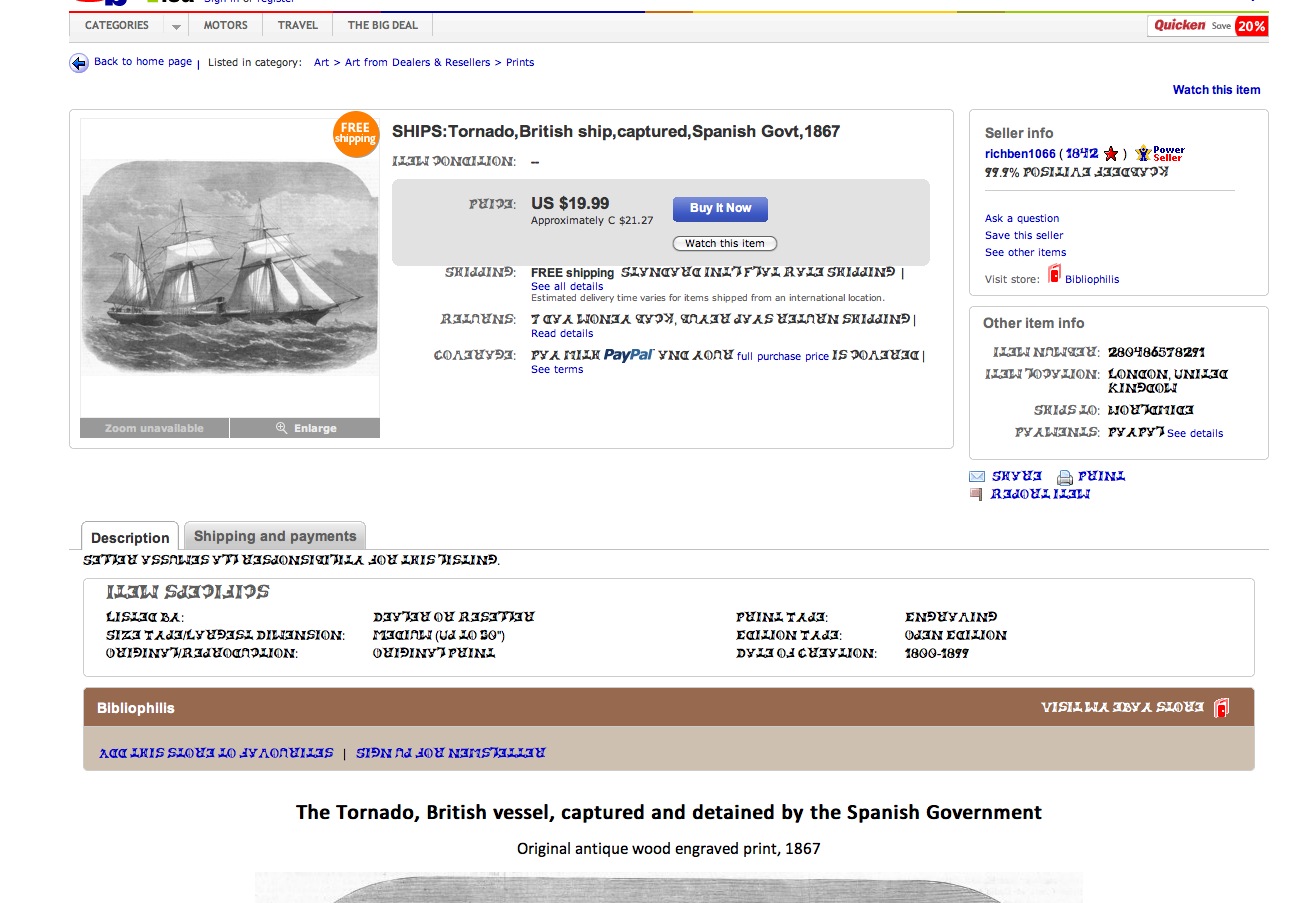
Hi,, I am finding a Bug in Safari 5, where it either cant remember it standard font or its default encoding.
a few times a day, I end up looking at ebay text which looks like quasi crillic text font.
I have tried to find this font on my hard disk to eleminate it. any one know what it is
also how to I stop safari forgetting these settings.
it is getting bloody annoying. I have sent several reports though to apple. to no avail. as usual.
That doesn't have anything to do with the text encoding; even if it were selecting the wrong one, basic ASCII will render correctly in just about any character set. Further, eBay specifies fonts for everything, so your default font isn't going to have any effect on that, either--that only comes into play if the site doesn't specify a font.
From the looks of it, that's just some oddball font with upside-down characters--whether it was intended to look like cyrillic or it's just a silly font, I don't know, but it must be one you've installed because it's not system standard to my knowledge.
And really, that sounds a whole lot more like a system-level font problem than something Safari 5 is screwing up with stylesheets--since all the text being mis-fonted is Arial plain, it's quite possible that font is in some way being misidentified as Arial. It has no bold version, and since Safari refuses to create pesudo-bold/italic fonts for display, the text goes normal when it's bolded.
This exact behavior is what usually happens when you've either installed a font, or a font has gotten corrupted such that it has the same font identification as a system font. For example, if you install something that mis-identifies itself as Lucida Grande, your menu bar may show up in that font.
Two things you can do:
1) Open up Font Book in your applications folder, select everything, and do a "Validate Fonts" from the file menu; see if one of the ones that comes up with an error is the problem font; it may be reparable.
2) Figure out what specific font that is, and locate it in Font Book. I'm going to bet it shows up as being a duplicate in Font Book, but even if not, try disabling it. Your problem should immediately clear up, unless it really is something else going on. You may need to quit and re-open Safari for the font changes to take effect.
You could also try using a system utility like Leopard Cache Cleaner to delete font caches, but that probably won't do anything unless you also disable the problematic font.